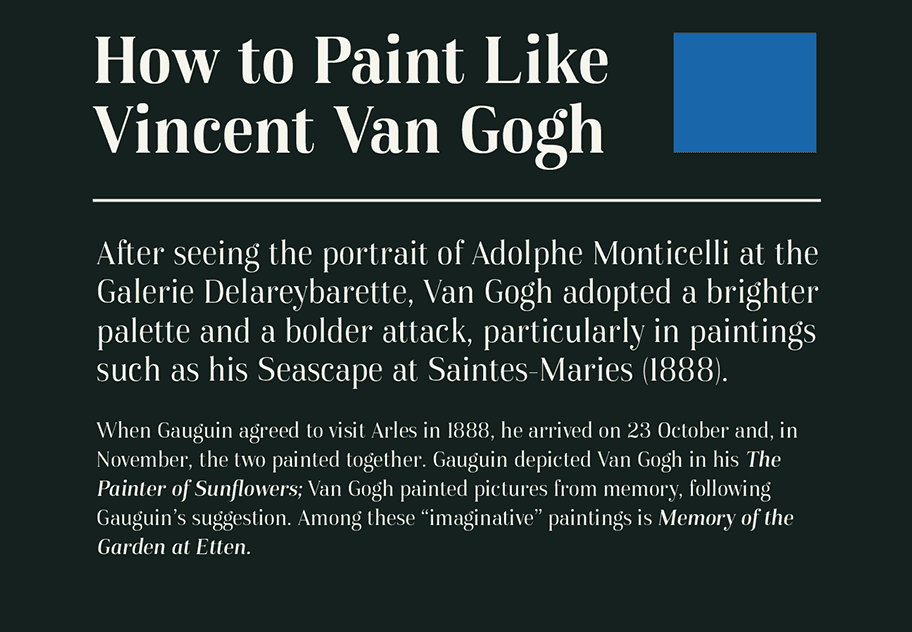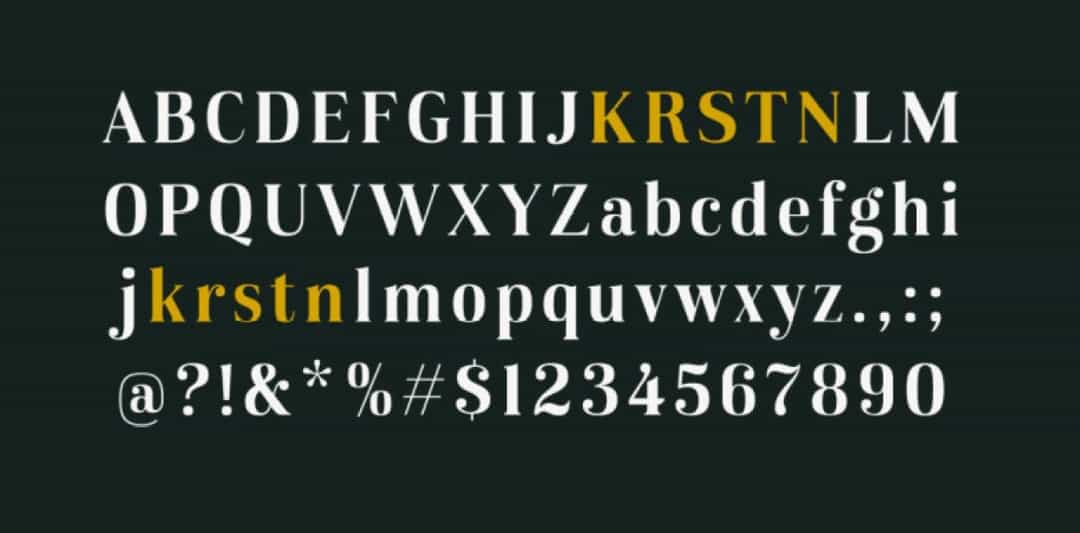
Karsten typeface was inspired by signs from old Dutch buildings in Java, before eventually evolving into its current state as a mix of modern design. This font is named in honor of Herman Thomas Karsten a Dutch architect who contributed significantly to both architecture and town-planning in Indonesia.